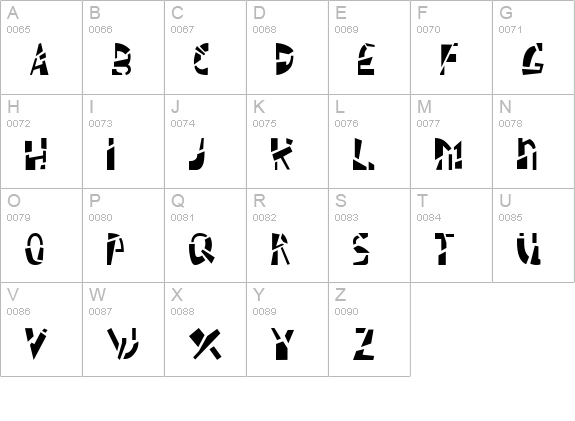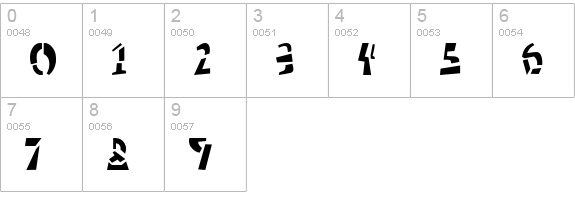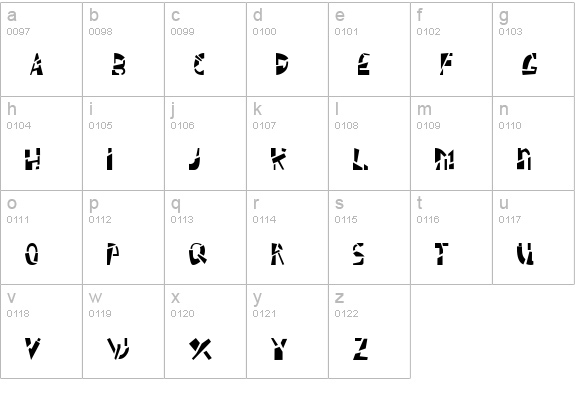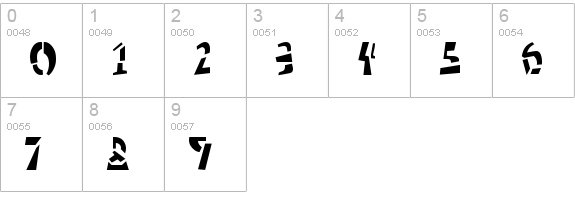
Schizm Font Details
Introducing Schizm font, a unique and captivating typeface that effortlessly combines elegance with a touch of intrigue. With its intricate details and mesmerizing curves, Schizm font is sure to catch the eye and captivate the imagination. This font is the perfect choice for those seeking to add a touch of mystique to their designs. Whether you're working on a logo, a poster, or a website, Schizm font will effortlessly elevate your project to new heights of sophistication. But what truly sets Schizm font apart is its accessibility. We believe that creativity should be freely expressed, and that's why Schizm font is available to download for free at FontsMarket.com. This means that you can bring your artistic visions to life without any barriers or limitations. So go ahead, unleash your creativity and explore the endless possibilities that Schizm font has to offer. Download it today and let your designs speak volumes with its alluring charm and distinctive appeal.